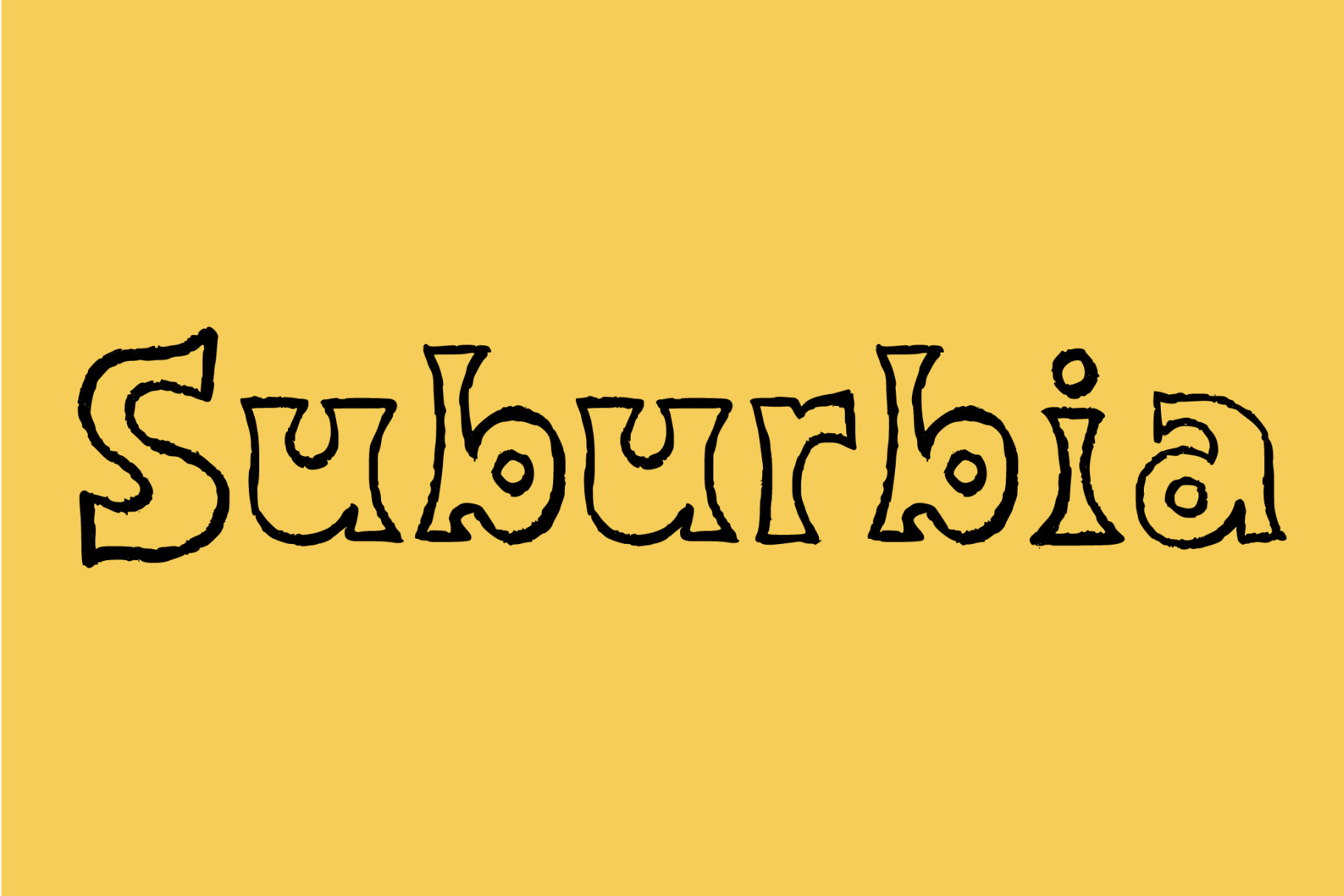
Suburbia - A Retro Handmade Font
Suburbia takes you back in the best possible way.
This retro handmade typeface blends nostalgic warmth with a thoroughly modern sensibility. Think vintage diners, retro packaging, 70s-inspired branding, and hand-painted signage. Suburbia works beautifully at any size and brings an effortless authenticity to both print and digital projects.
Retro & vintage brand identities
Food & beverage packaging
Editorial design & magazine layouts
Greeting cards & print stationery
Social media graphics & content branding
Podcast covers & YouTube channel art
Suburbia is for designers who know that the best-looking work always has a little soul in it.